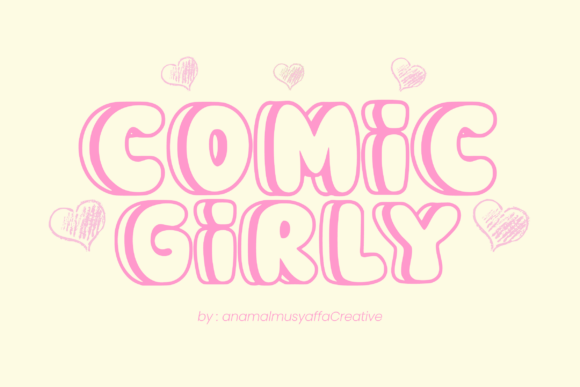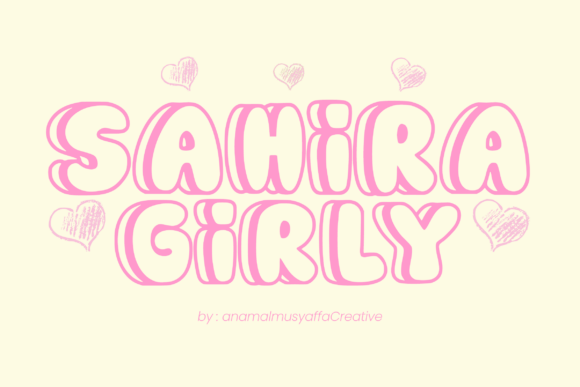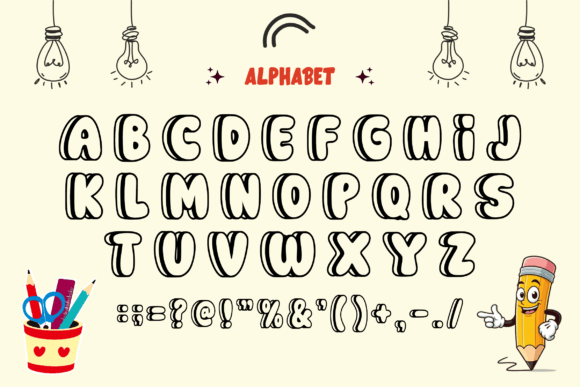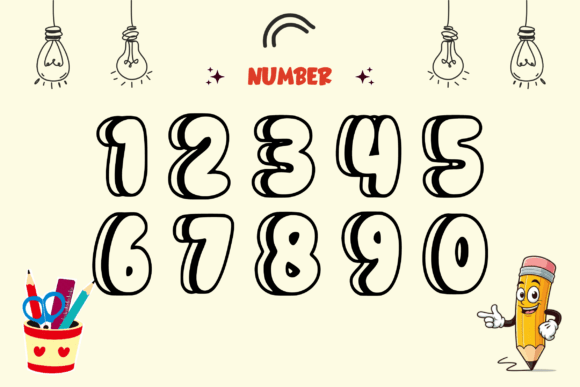
Cute Girly Font: The Ultimate Choice for Whimsical Designs
Are you a designer or crafter looking for a font that can add a touch of playfulness and charm to your projects? Look no further than the “Cute Girly” font, a modern meets playful cartoon font that is sure to delight. With its delightful characters and utopian appeal, this font is perfect for a wide range of applications, from t-shirt designs and mug prints to tote bag art, dynamic animations, and comic titles.
The Charm of Cute Girly Font
The “Cute Girly” font is a carefully crafted typeface that is designed to bring a sense of whimsy and fun to any medium. Its modern and playful design makes it an ideal fit for designers and crafters who want to create eye-catching and engaging projects. The font’s delightful characters are sure to capture the imagination of your audience, making it perfect for projects that require a touch of personality and charm.
One of the best things about the “Cute Girly” font is its versatility. It can be used for a wide range of applications, including:
- T-shirt designs: Add a touch of playfulness to your t-shirt designs with the “Cute Girly” font. Its bold and colorful characters are sure to make your designs stand out.
- Mug prints: Create eye-catching mug prints with the “Cute Girly” font. Its whimsical design is sure to make your mugs a favorite among friends and family.
- Tote bag art: Add a touch of personality to your tote bag art with the “Cute Girly” font. Its playful design is sure to make your tote bags stand out.
- Dynamic animations: Use the “Cute Girly” font to create dynamic and engaging animations. Its modern design is sure to capture the imagination of your audience.
- Comic titles: Add a touch of whimsy to your comic titles with the “Cute Girly” font. Its playful design is sure to make your comics stand out.
Why Choose Cute Girly Font?
So why choose the “Cute Girly” font for your next project? Here are just a few reasons:
- Unique and playful design: The “Cute Girly” font has a unique and playful design that is sure to capture the imagination of your audience.
- Versatile: The font is versatile and can be used for a wide range of applications.
- Easy to read: The font is easy to read, making it perfect for projects that require a clear and concise message.
- Customizable: The font is customizable, allowing you to adjust the size, color, and style to fit your project’s needs.
Tips for Using Cute Girly Font
Here are a few tips for using the “Cute Girly” font in your projects:
- Use it sparingly: While the “Cute Girly” font is playful and fun, it can be overwhelming if used too much. Use it sparingly to add a touch of whimsy to your projects.
- Pair it with other fonts: The “Cute Girly” font pairs well with other fonts, such as sans-serif fonts. Experiment with different font combinations to find the perfect look for your project.
- Experiment with colors: The “Cute Girly” font looks great in a variety of colors. Experiment with different colors to find the perfect look for your project.
In conclusion, the “Cute Girly” font is a versatile and playful typeface that is perfect for designers and crafters who want to add a touch of whimsy and charm to their projects. Its modern design, delightful characters, and utopian appeal make it an ideal fit for a wide range of applications. Whether you’re creating t-shirt designs, mug prints, tote bag art, dynamic animations, or comic titles, the “Cute Girly” font is sure to bring a smile to your audience’s face. So why not give it a try and see what amazing projects you can create?